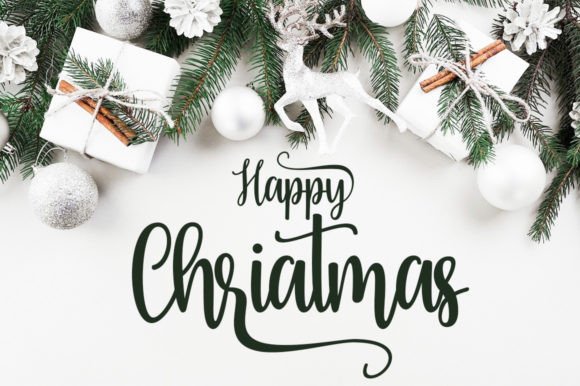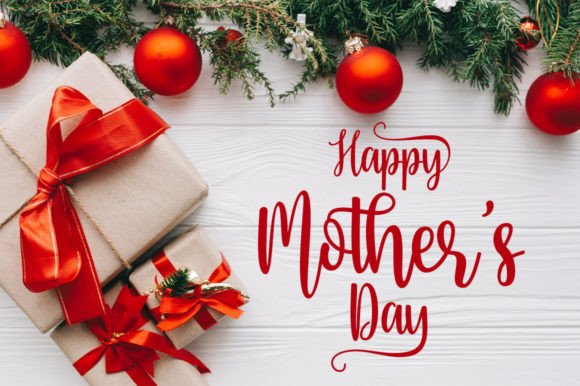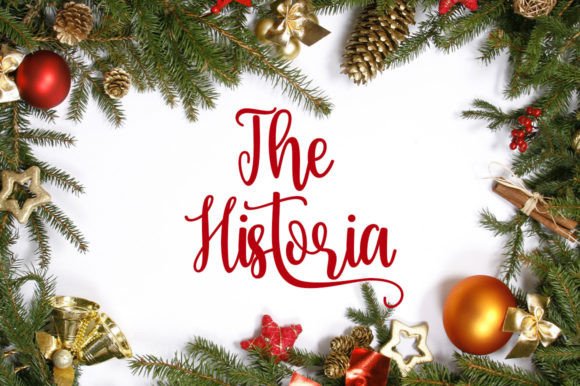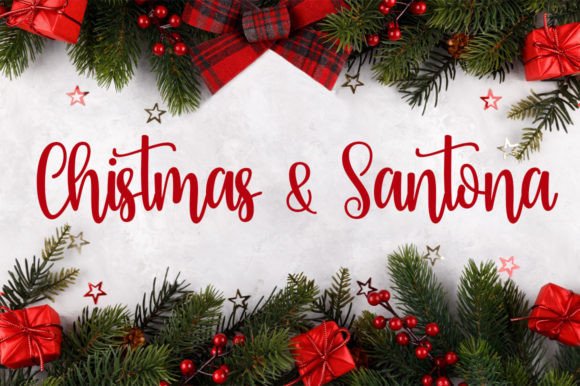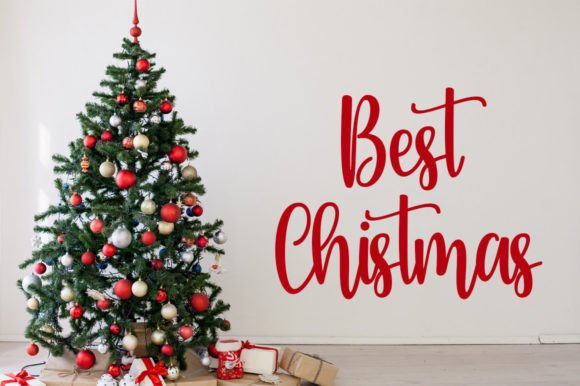
Moreng Chistmas Font
About Moreng Chistmas Font
**Moreng Christmas Font: Elegant Script for Festive Projects**
The Moreng Christmas font is a stylish script typeface with a contemporary and festive vibe, designed to enhance the beauty of your holiday-themed projects. Here’s how you can utilize this elegant font to create stunning designs for the Christmas season:
1. **Greeting Cards:** Craft personalized and elegant Christmas greeting cards that convey warmth and holiday spirit. The Moreng Christmas font’s elegant script adds a touch of sophistication to your holiday wishes.
2. **Invitations:** Design chic and festive invitations for Christmas parties, gatherings, and events. The font’s contemporary yet classic calligraphy style sets the tone for a memorable celebration.
3. **Holiday Branding:** Give your brand a festive makeover during the holiday season. Use the Moreng Christmas font in your logos, product packaging, and marketing materials to create a cohesive and seasonal look.
4. **Christmas Banners:** Create eye-catching banners and headers for your website and social media channels. The font’s balanced and varied form adds a touch of elegance to your online presence.
5. **Christmas-Themed Merchandise:** Design holiday-themed merchandise, such as mugs, T-shirts, ornaments, and more, with the Moreng Christmas font. Its festive style complements the spirit of the season.
6. **Gift Tags:** Make your gift-giving extra special by designing custom gift tags with the Moreng Christmas font. Add personalized messages to your presents for a heartfelt touch.
7. **Festive Flyers:** Design vibrant and informative flyers for holiday sales, promotions, and events. The font’s contemporary elegance will capture the attention of your audience.
8. **Holiday Menus:** Create elegant and seasonal menus for restaurants, cafes, and catering services. The font’s classic calligraphy style elevates the dining experience.
9. **Christmas Quotes:** Design beautiful typographic artwork featuring inspiring Christmas quotes and messages. The font’s timeless appeal enhances the visual impact of your designs.
10. **DIY Decorations:** Use the Moreng Christmas font to create DIY holiday decorations, including banners, signs, and ornaments. Its versatility adds a touch of elegance to your festive decor.
11. **Personalized Gifts:** Design custom gifts, such as personalized prints and wall art, using the font to add a festive and elegant touch to your creations.
12. **Holiday-themed Labels:** Apply the font to create labels for homemade holiday treats, preserves, and gifts. The font’s contemporary form adds a professional and festive look to your labels.
13. **Holiday Packaging:** Elevate the presentation of your holiday gifts and products with the Moreng Christmas font on packaging materials like boxes, bags, and tags.
14. **Christmas Photography:** Use the font to add festive text overlays and watermarks to your holiday photography, creating memorable images for your family or clients.
15. **Social Media Posts:** Incorporate the Moreng Christmas font into your social media graphics, posts, and stories to give your online presence a festive and elegant edge during the holiday season.
The Moreng Christmas font, with its PUA encoding for easy access to glyphs and swashes, is the perfect choice to infuse elegance and contemporary charm into your Christmas-themed designs. Its balanced and varied form will help your projects stand out and capture the spirit of the season with style and sophistication.